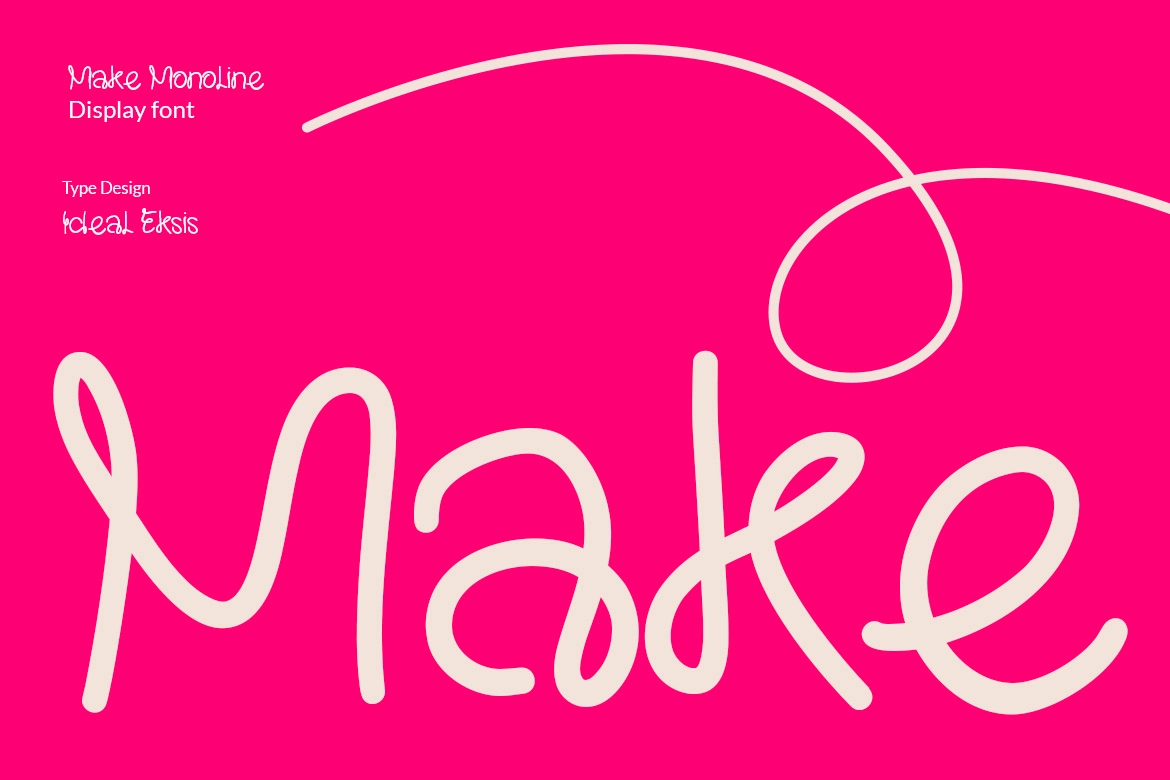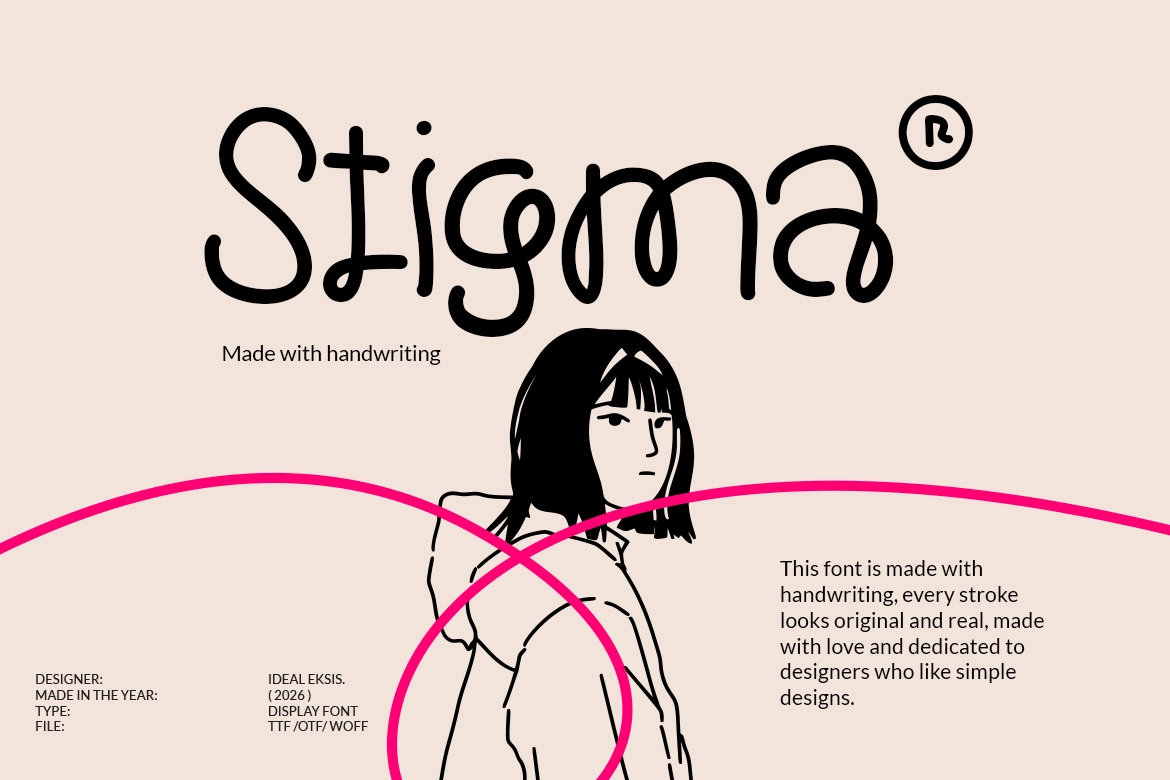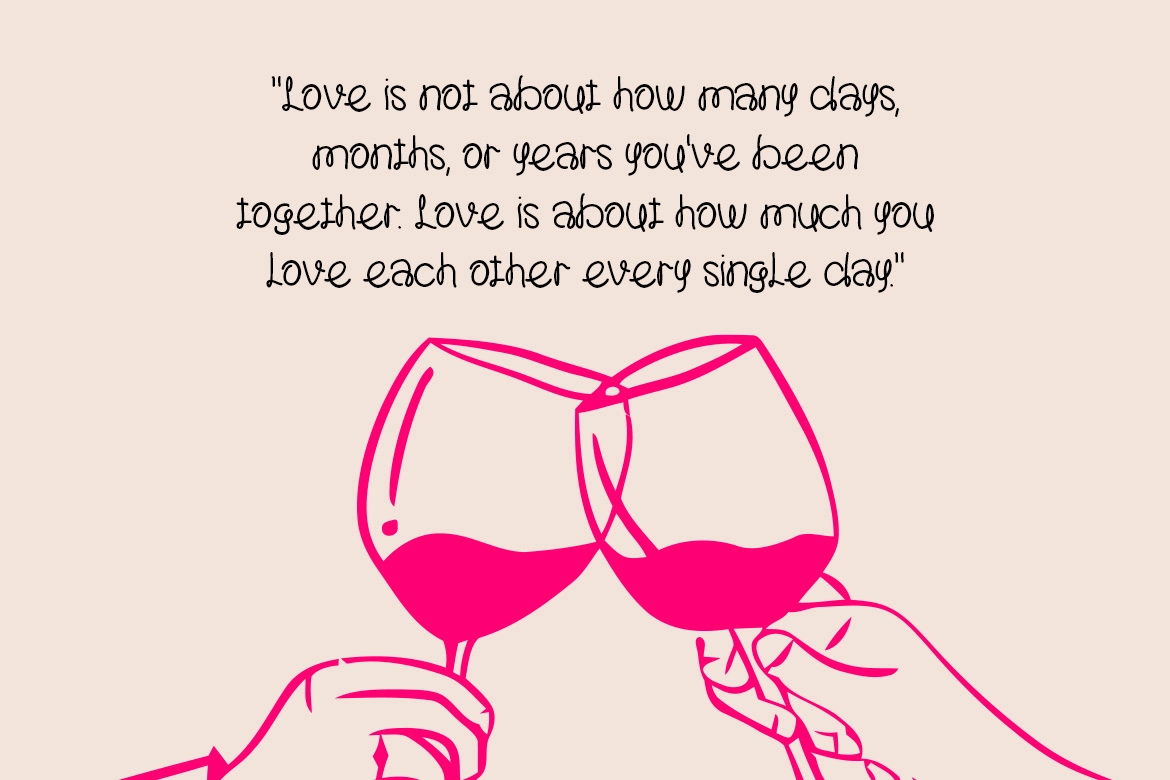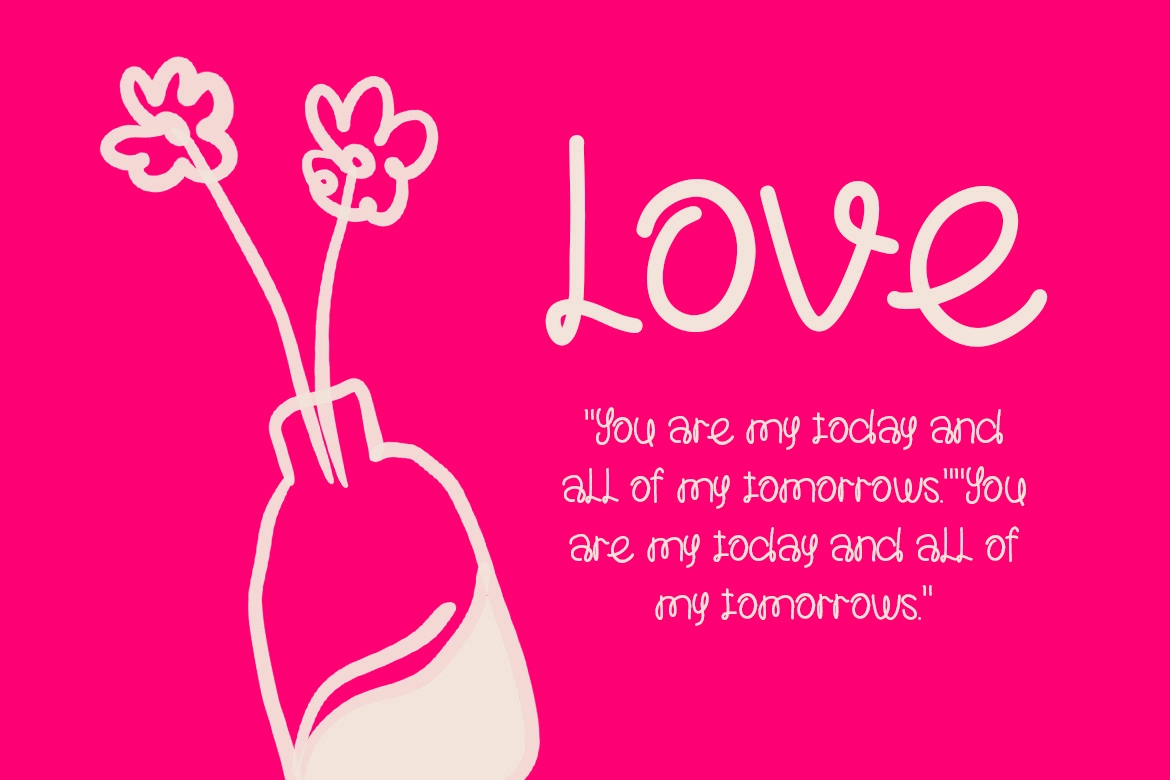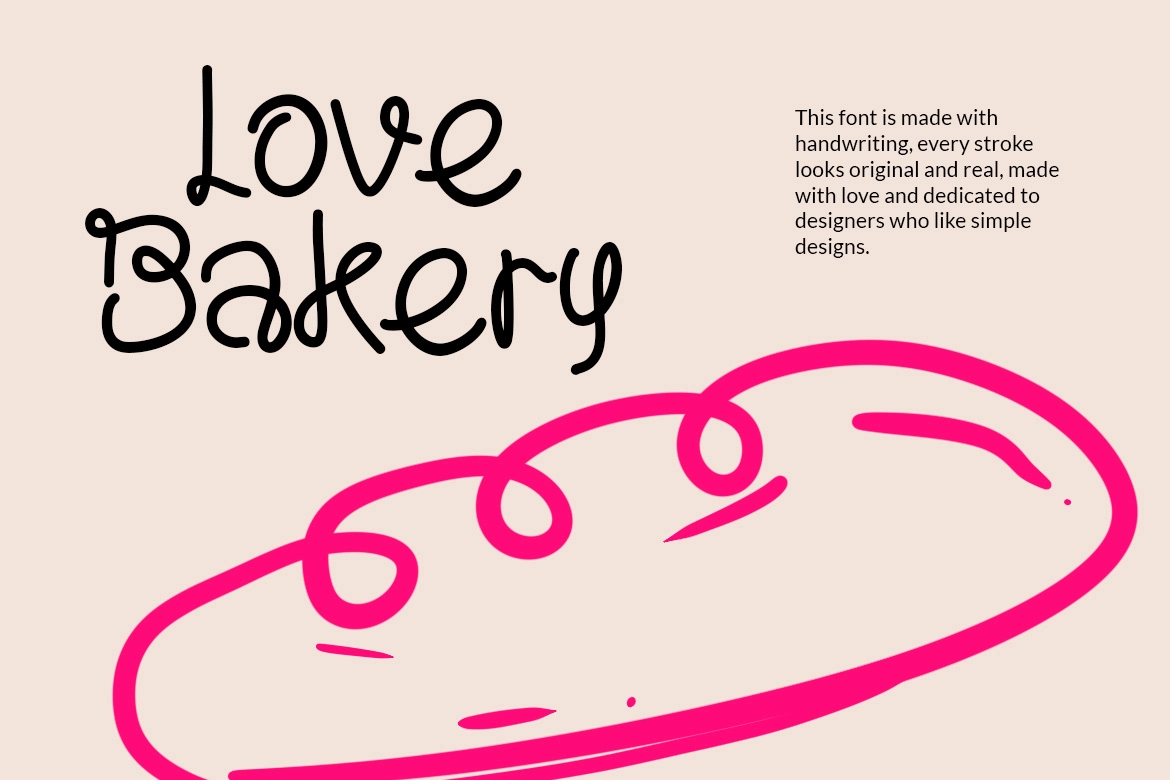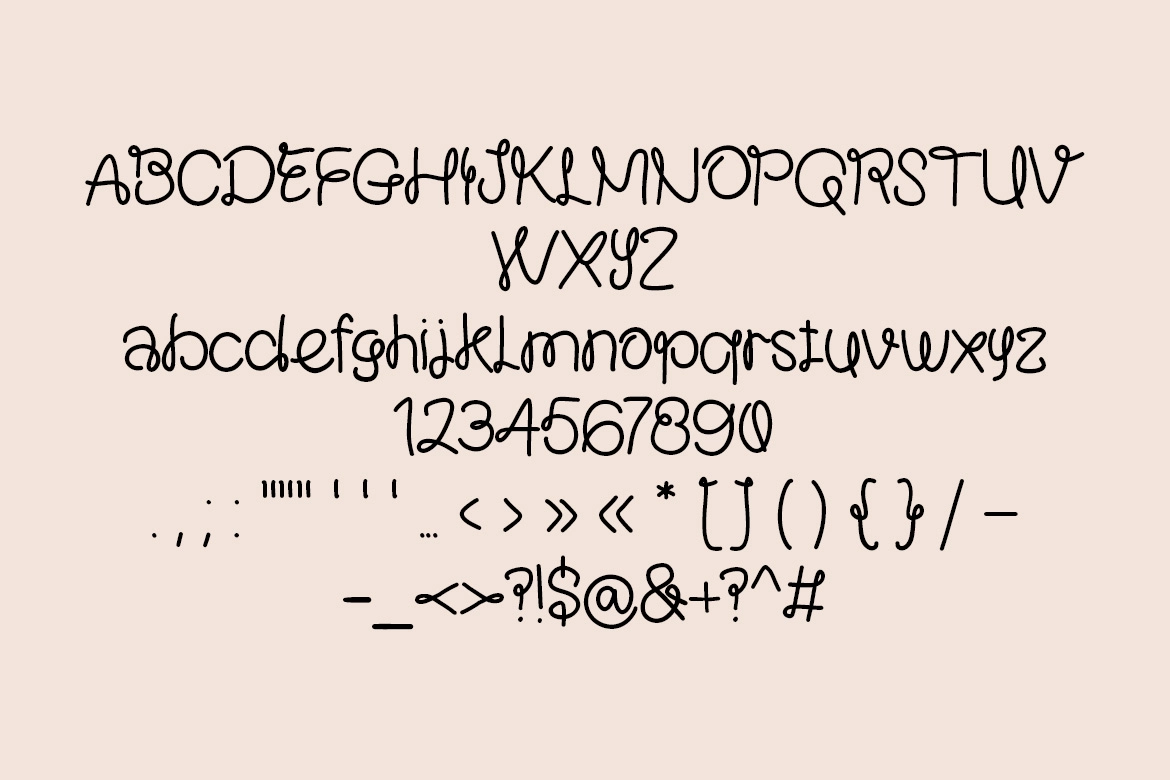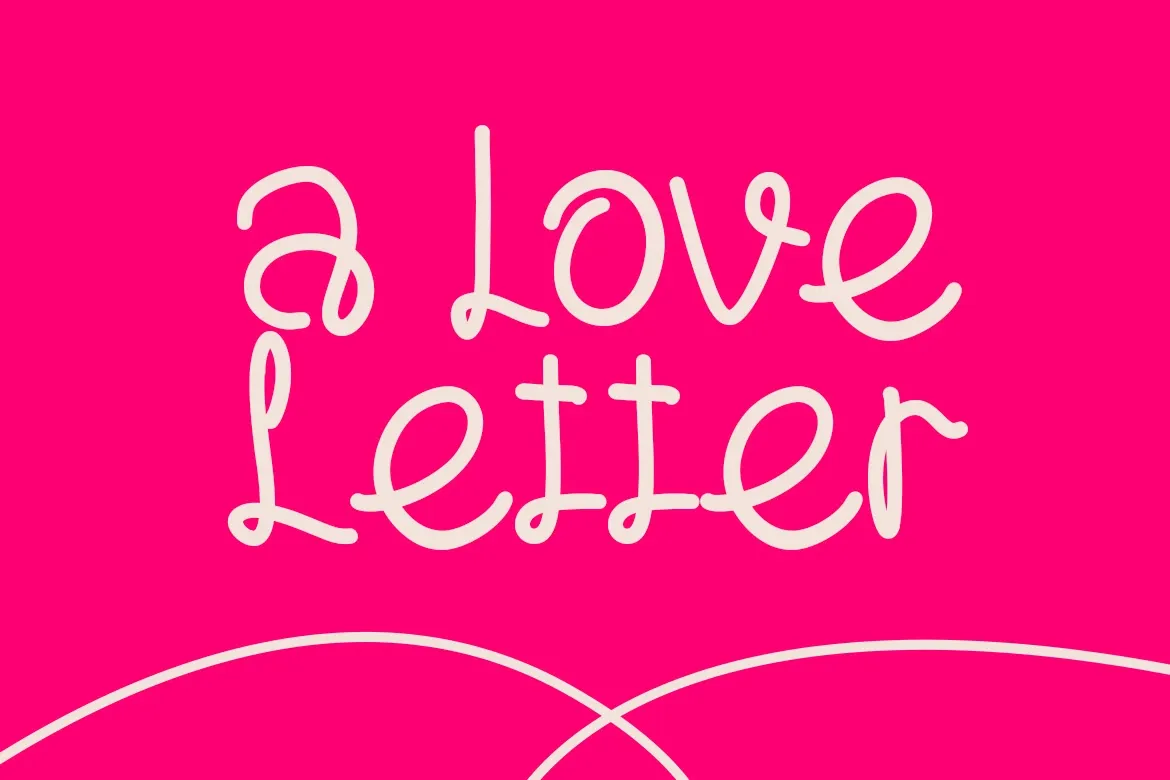
Make - Monoline Handwritten Font
Make – Monoline Handwritten Font is a lively and modern script typeface crafted with smooth, consistent stroke weight and natural handwritten flow. Designed with rounded terminals and playful loops, this monoline font captures the charm of authentic handwriting while maintaining clean structure and readability. Its expressive curves — especially in signature-style letters like M and k — create a distinctive and memorable personality.
Perfect for branding, social media graphics, packaging, logos, invitations, posters, and creative headlines, Make Monoline Handwritten Font delivers a friendly, energetic, and contemporary feel. Whether you're building a bold visual identity or adding a personal touch to your design, this font brings movement, warmth, and creativity to every composition.
• Uppercase & lowercase characters
• Clean monoline stroke consistency
• Numerals & punctuation included
• Smooth handwritten flow with stylish loops